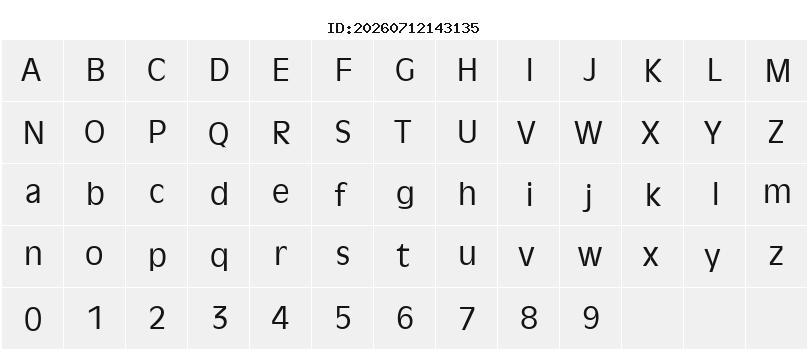
Ravenna-Serial DB Preview
About Ravenna-Serial DB.ttf
Ravenna-Serial DB.ttf is a modern, elegant sans-serif font designed for ultimate readability and visual harmony. Perfect for branding, headlines, web design, and print materials.